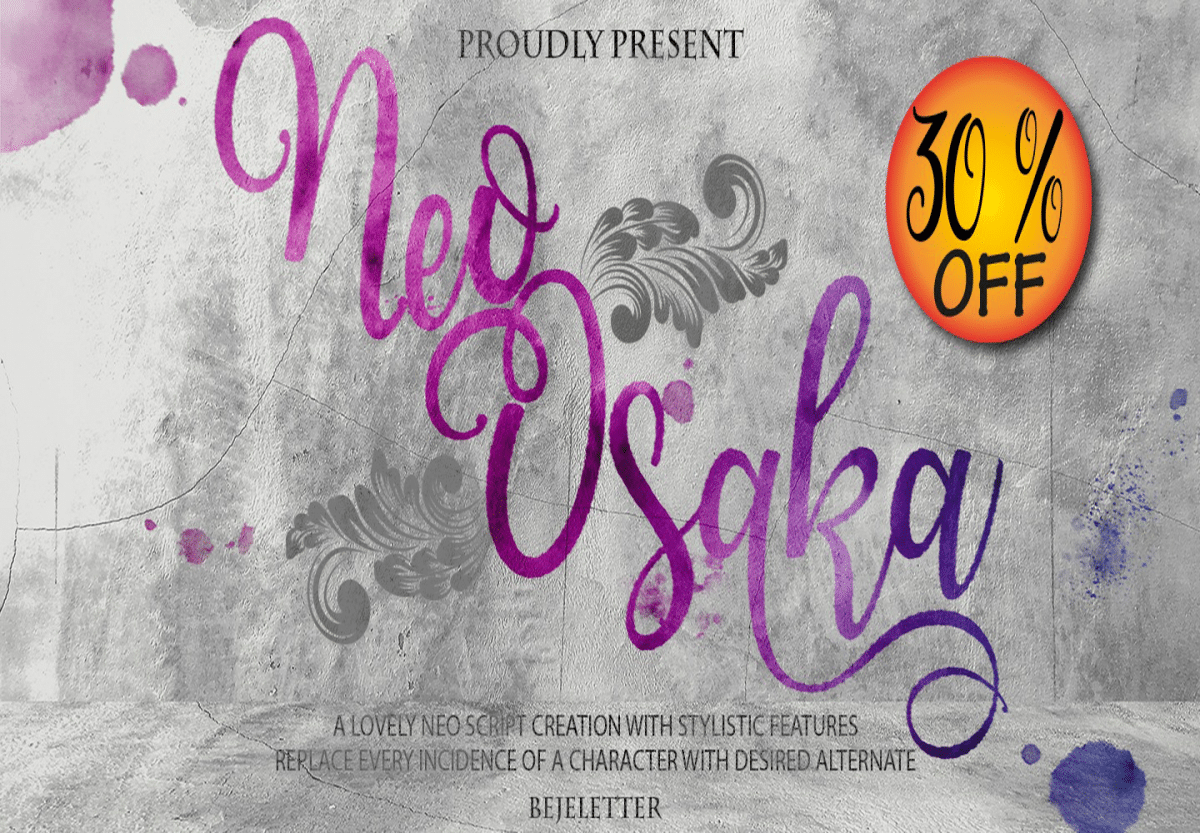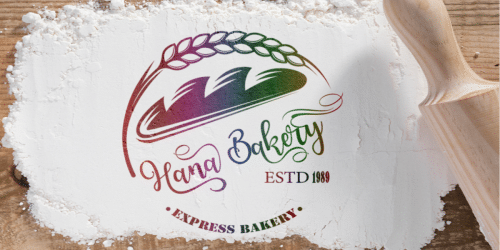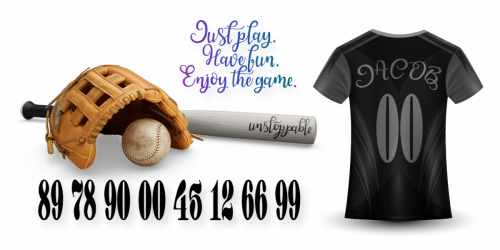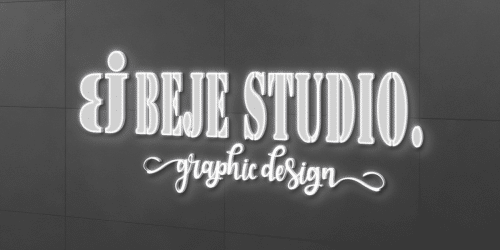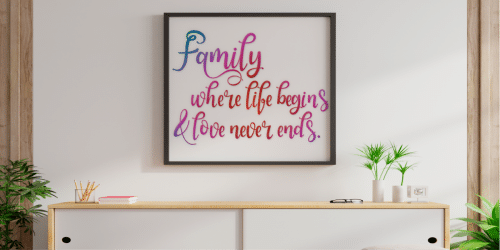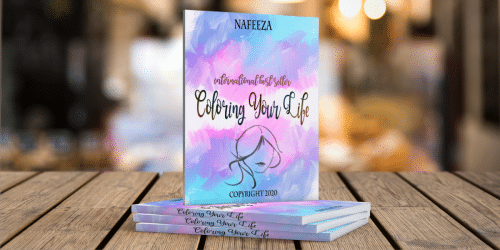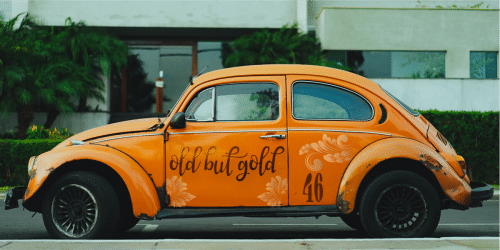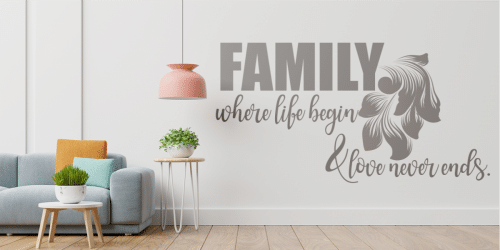
Neo Osaka is a lovely neo script with stylistic features. Neo Osaka is perfect for product packaging, branding project, megazine, social media, wedding, sport jersey design number or just used to express words above the background (interior).
Built with OpenType features and includes beginning and ending swashes, alternate characters for both lowercase and uppercase letters, loads of different swash alternates for lowercase letters, numbers, punctuation, alternates, ligatures and it also supports other languages.